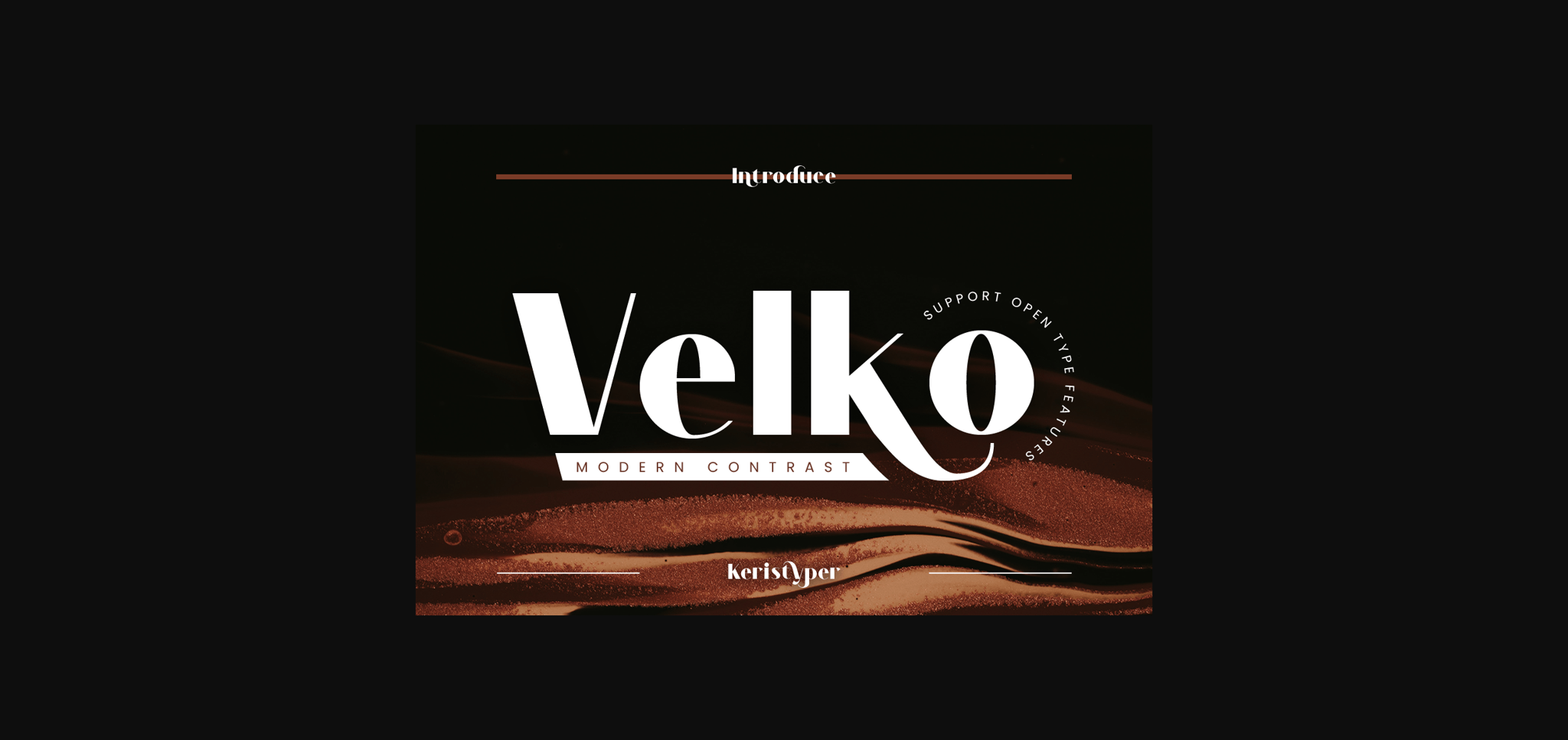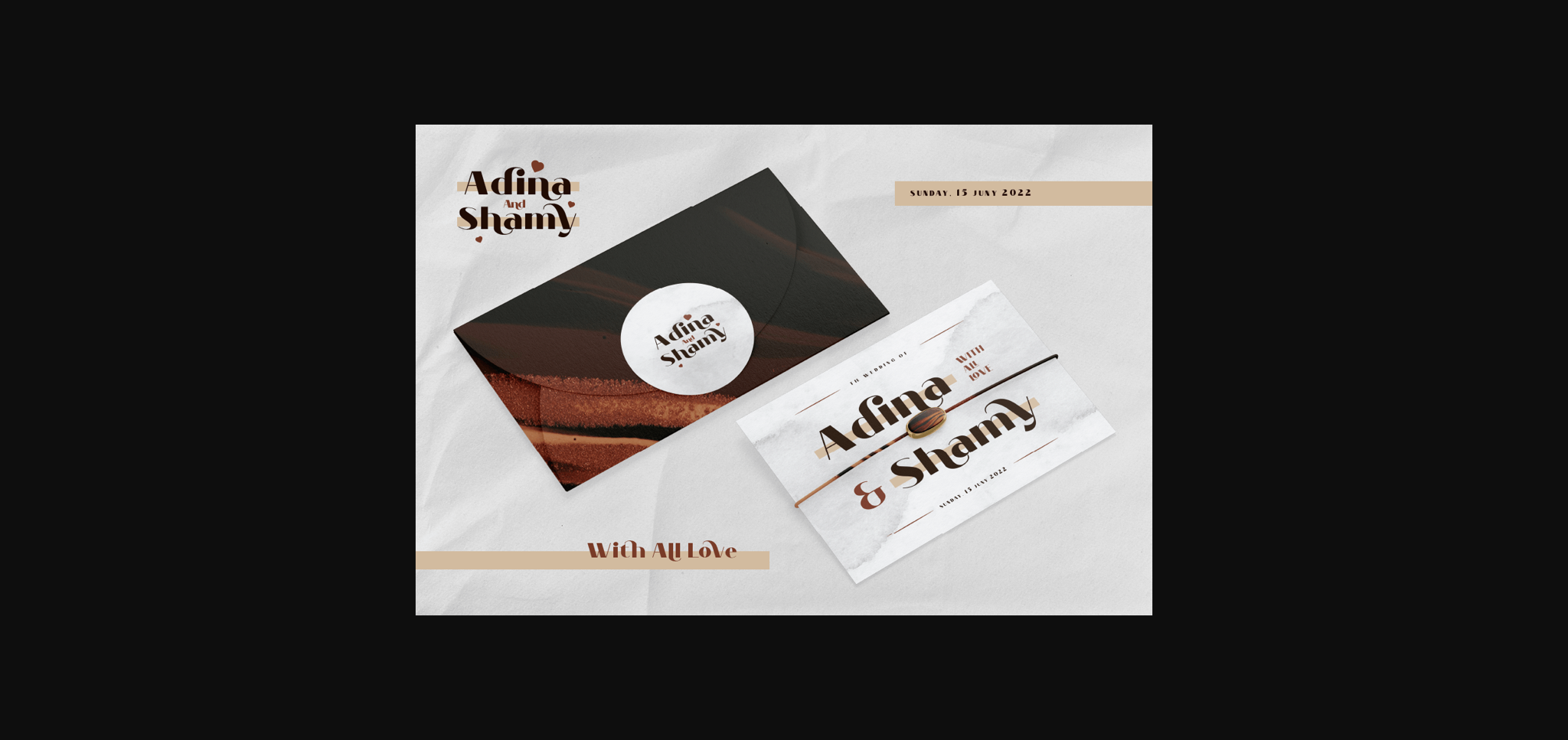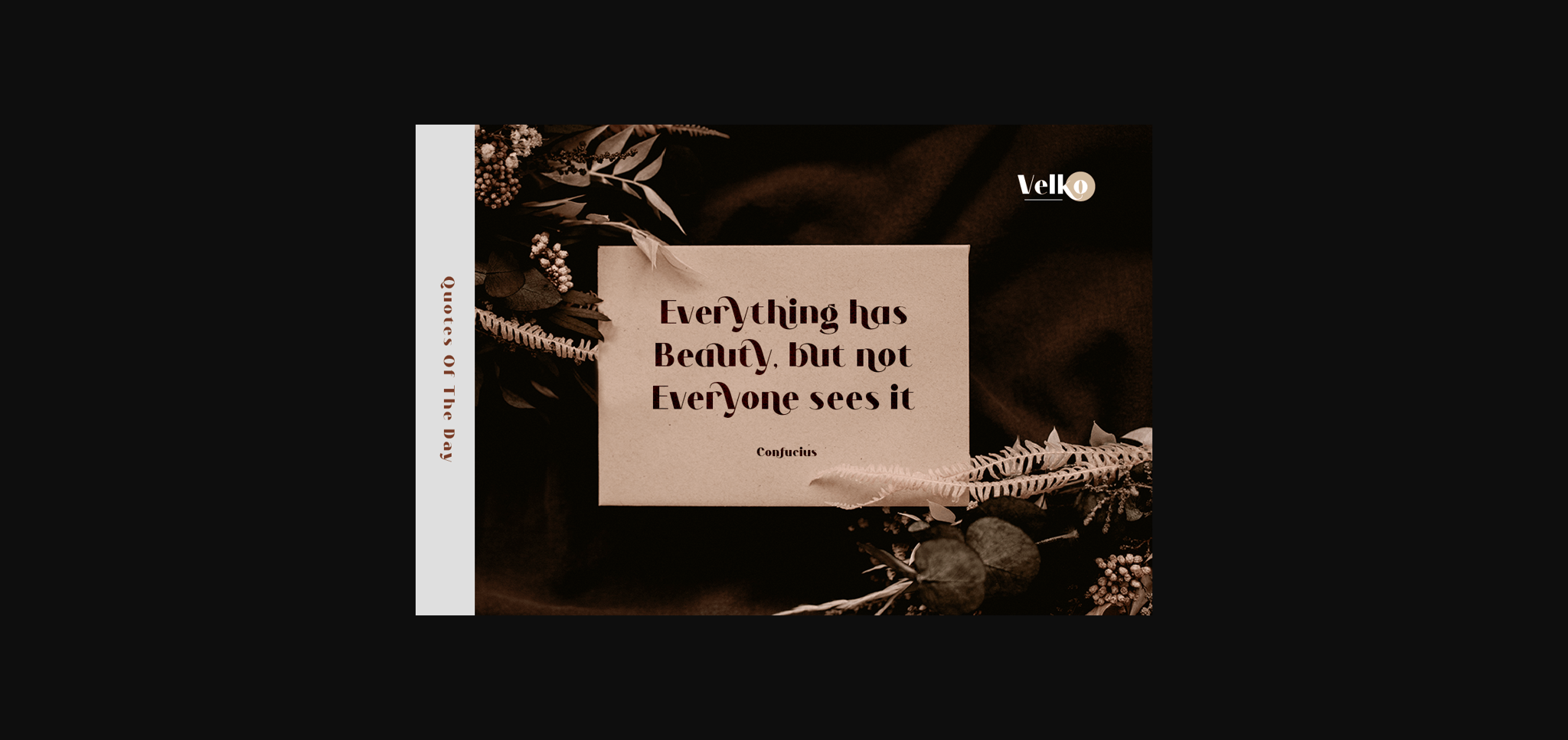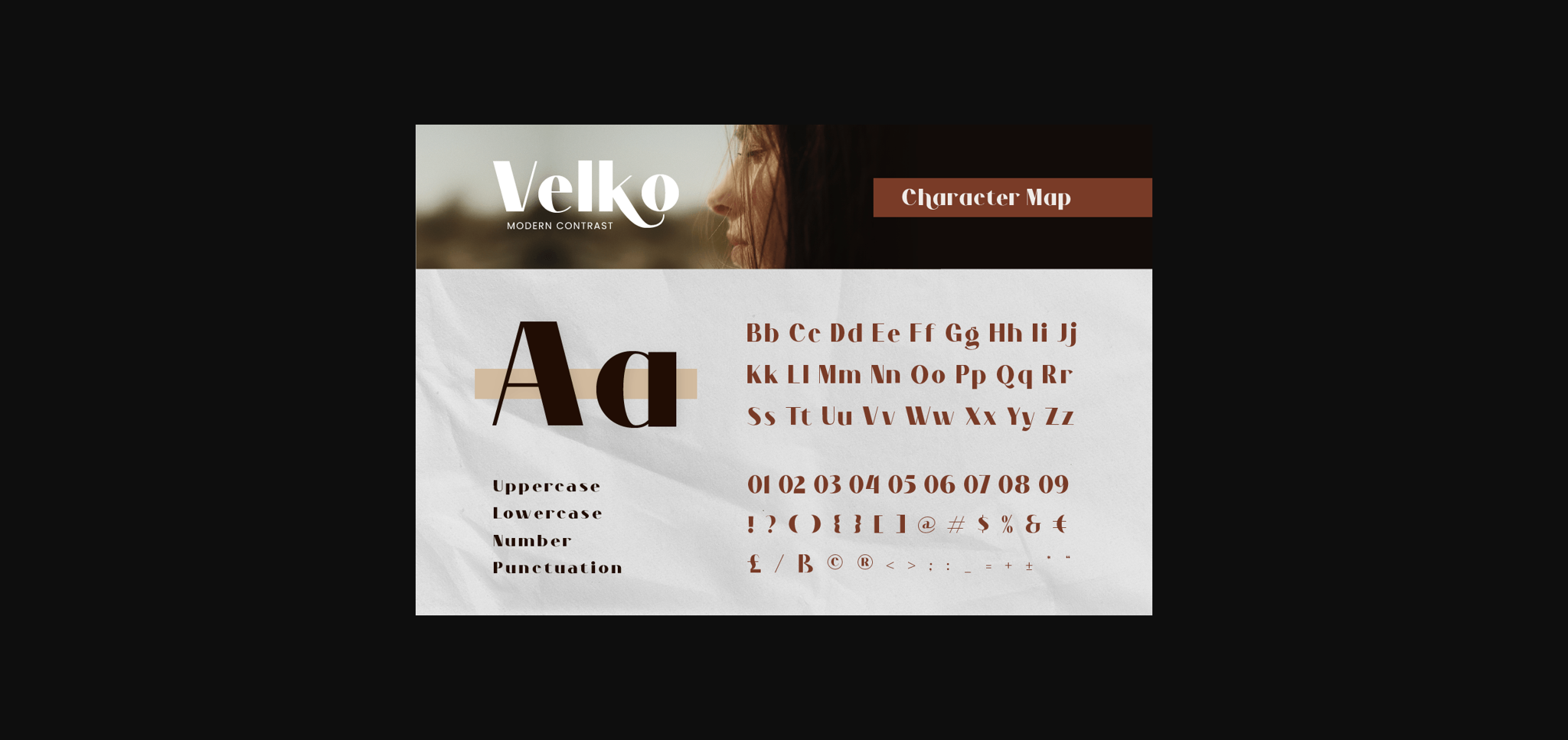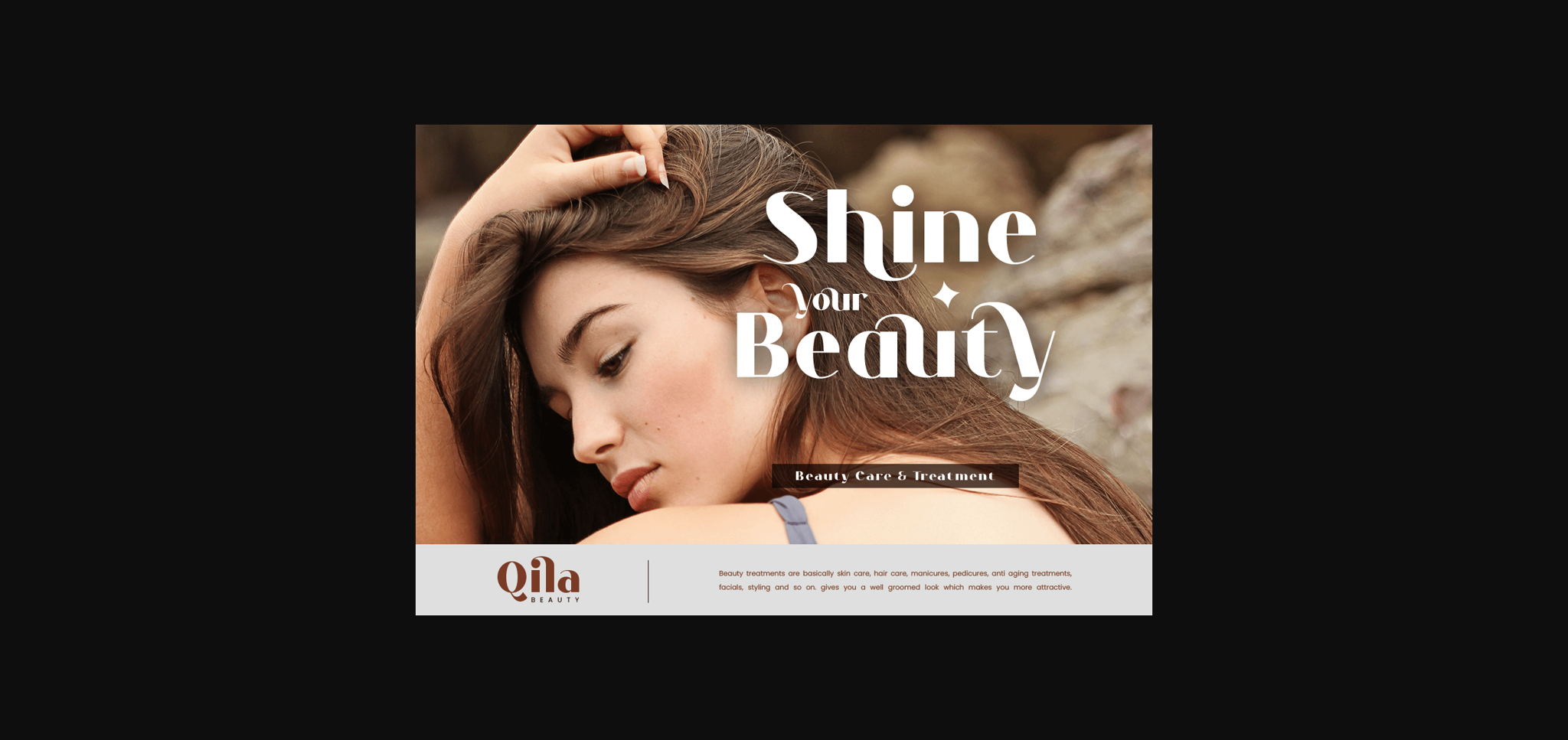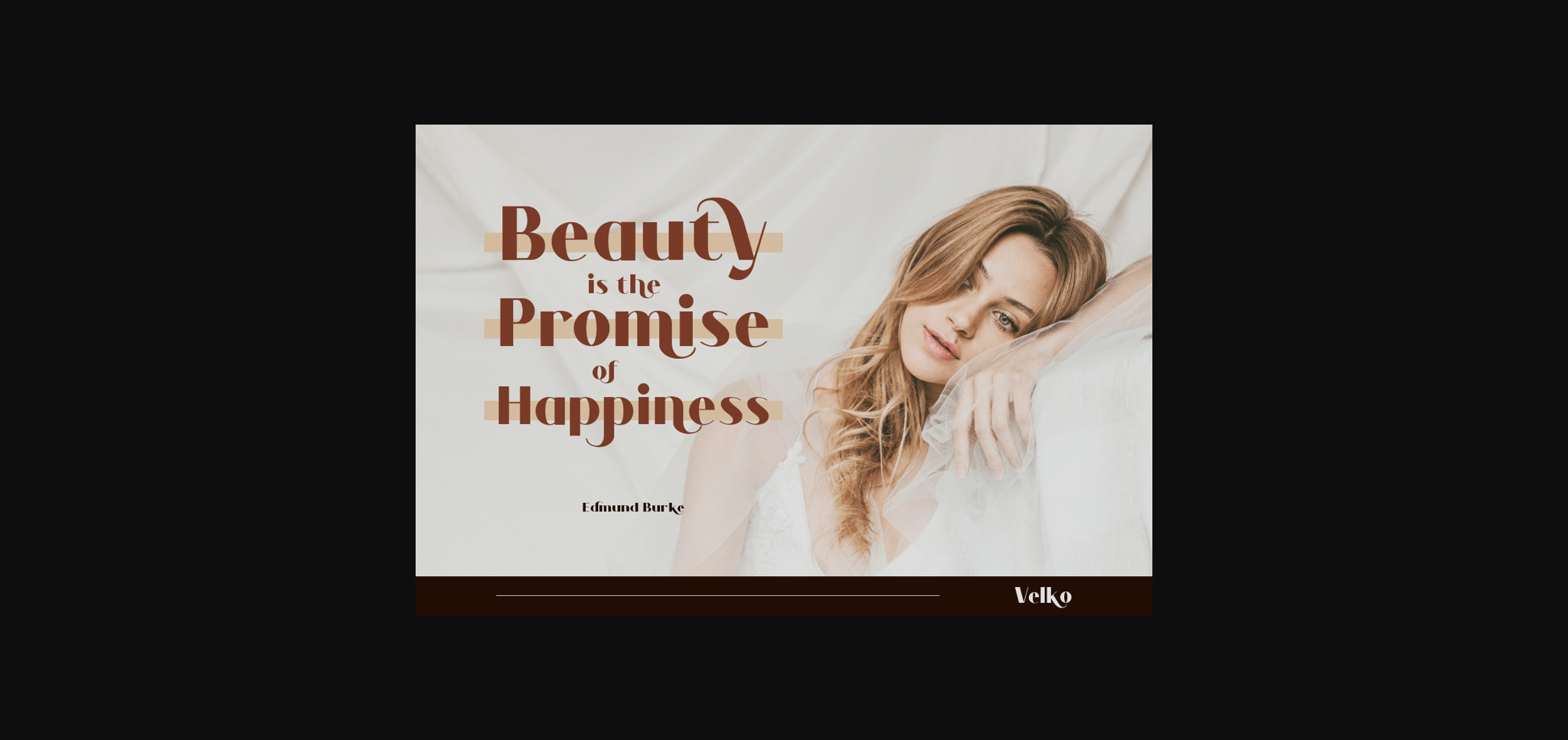
Velko Font
About Velko Font
Velko is a modern sans serif font with clean and minimal lines. Fall in love with its incredibly versatile style and use it to create spectacular designs!